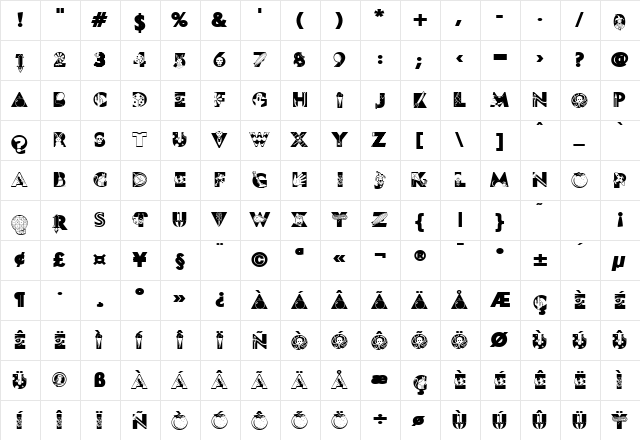
Fonture Regular
Design Context for Fonture Typeface
Fonture is a composed and adaptable typeface that performs quietly and consistently across a wide range of design contexts.